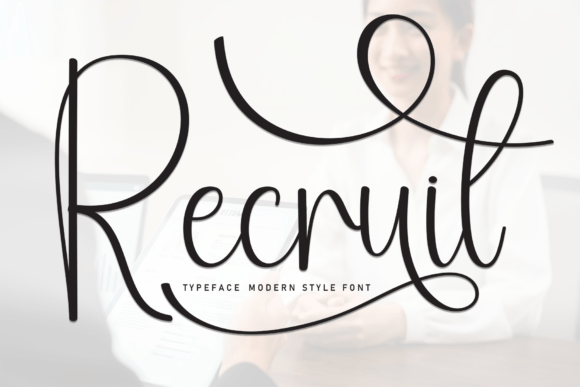
Recruit Font - The Essence of Charm and Elegance for Your Special Day
Enter the enchanting world of Recruit Font, where every letter dances with grace and joy, adding a touch of magic to your special day. Inspired by the timeless beauty of handwritten notes, this script font exudes a sweet and friendly charm that captures the essence of love and celebration.
With Recruit Font, you hold the key to unlocking a world of creative possibilities. Let your imagination soar as you craft stunning wedding invitations, cards, and any other design that craves a playful and heartwarming touch. Whether you're planning an intimate gathering or a grand celebration, Recruit Font will effortlessly elevate your designs with its elegant and inviting style.
Imagine the joy on your loved ones' faces as they receive your wedding invitations, each one meticulously crafted with the captivating charm of Recruit Font. The flowing lines and playful curves of this font will evoke a sense of excitement and anticipation, setting the tone for a day filled with love and laughter.
In the realm of digital design, Recruit Font reigns supreme. Its versatility extends from wedding stationery to social media posts, logos, and branding materials. With its ability to infuse any project with a touch of whimsy and delight, Recruit Font will help you create designs that captivate and inspire.
Don't settle for ordinary fonts that blend into the background. Embrace the magic of Recruit Font and watch as your designs come alive with personality and charm. Let this enchanting script font carry your message of love and joy, leaving an unforgettable impression on all who encounter it.